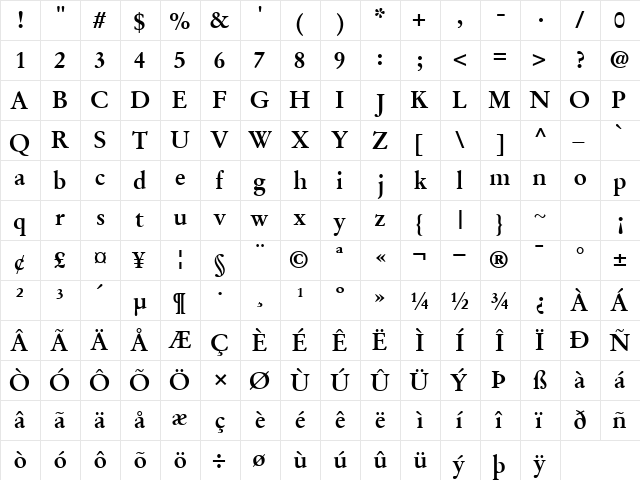
DeutchGaramondSSK Bold
Design Context for DeutchGaramondSSK Typeface
DeutchGaramondSSK takes a measured approach to typography — its balanced proportions and neutral character make it a reliable workhorse for both digital and print work. Its bold stroke weight gives it real presence on the page.